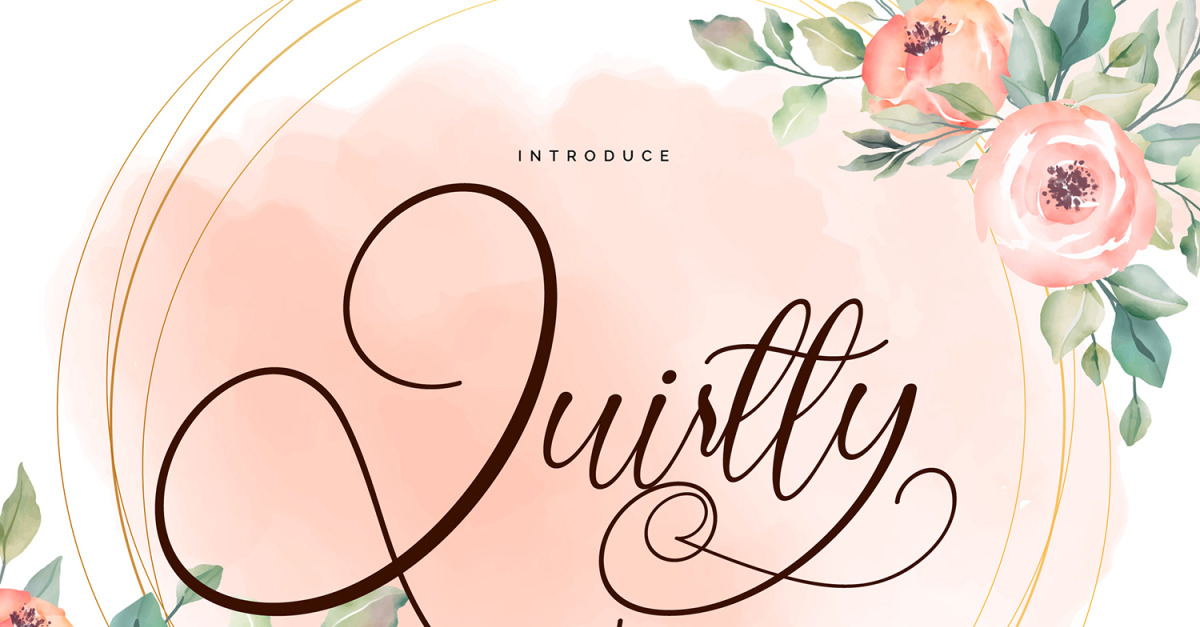
Quirtty | A Luxury Script Font
**Quirtty | A Luxury Script Font** with a calligraphy style, So beautiful on invitation like greeting cards, branding materials, business cards, quotes, posters, and more!